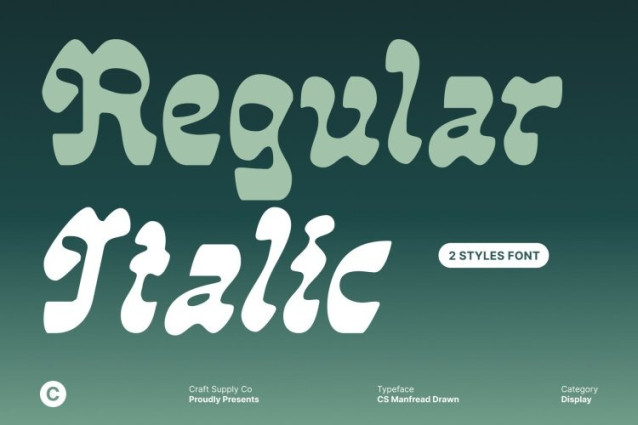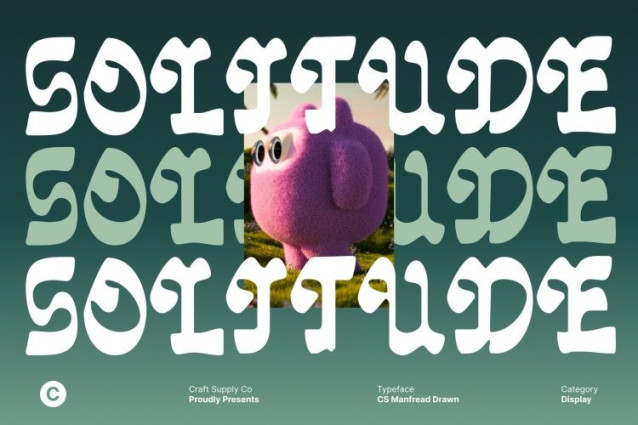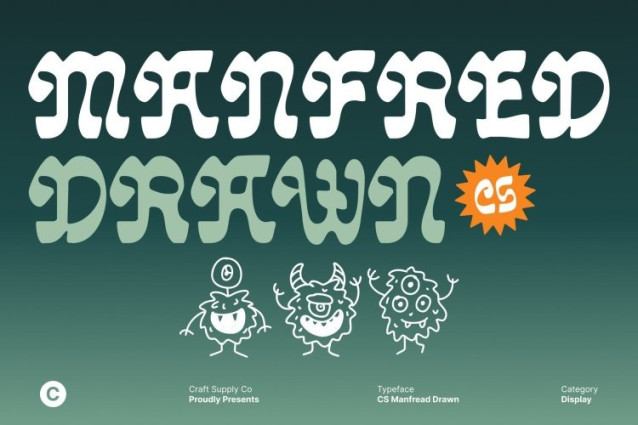
CS Manfred Drawn Font
CS Manfred Drawn Font This is a retro display font that showcases bold reverse contrast, where horizontal strokes appear thicker than the verticals. This unconventional weight distribution creates a striking visual rhythm that immediately captures attention. Enhanced with a drawn texture, the font gains an expressive, handcrafted quality that adds warmth and personality to its bold retro foundation.
Bold Structure with Creative Unconventionality
The reverse contrast construction of delivers a dramatic and confident appearance. Its strong shapes challenge traditional typographic norms, resulting in letterforms that feel daring and full of character. The bold structure ensures high visibility, while the drawn details soften the form, making the font feel lively rather than rigid.
Vintage Spirit with Distinctive Retro Flair
Rooted in classic typography, channels a strong vintage atmosphere while maintaining a fresh and engaging edge. The retro influence brings nostalgia and charm, while the reverse contrast styling adds a sense of experimentation and visual intrigue. This balance makes the font feel familiar yet creatively rebellious.
Perfect for Posters, Packaging, and Retro Branding
Designed to stand out, excels in posters, packaging, labels, editorial headlines, and retro-inspired branding. Its expressive forms and bold presence make it ideal for designs that aim to be memorable and character-driven.